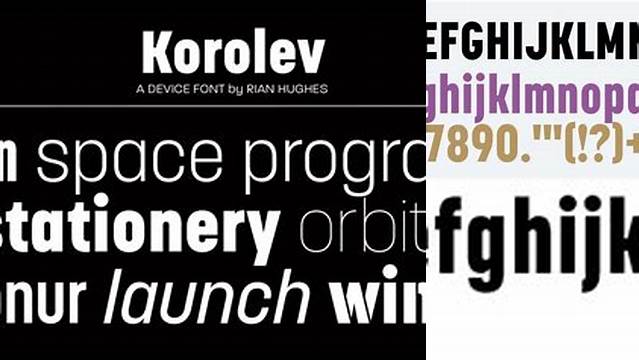
Hey guys, are you on the hunt for a bold, attention-grabbing font that's perfect for headlines, posters, and branding? Well, look no further because today we're diving deep into the Korolev Condensed Heavy font, including how to get a free download and how to use it effectively. This font is a real workhorse, offering a strong visual impact that can instantly elevate your design projects. So, let's get started and explore everything you need to know about this fantastic typeface!
What is Korolev Condensed Heavy? A Deep Dive
Firstly, what exactly is Korolev Condensed Heavy? It's a modern, sans-serif typeface known for its condensed nature and, as the name suggests, its heavy weight. This combination makes it ideal for making a statement. Think about it: the condensed style means it takes up less horizontal space than a regular font, allowing you to fit more text into a smaller area without sacrificing readability (as long as you use it in moderation, of course!). The heavy weight ensures that the text is bold and noticeable, instantly drawing the eye. The font's clean lines and strong presence make it a versatile choice for various design applications. From posters and websites to logos and social media graphics, Korolev Condensed Heavy can significantly enhance the visual appeal of your project. Its readability even at larger sizes makes it especially suitable for headlines, titles, and any other text that needs to grab attention.
The design of Korolev Condensed Heavy often features a geometric aesthetic, lending it a contemporary and slightly minimalist feel. This clean and simple design is one of the reasons why it is so effective. It avoids being overly ornate, ensuring that the message remains the primary focus. The font's structure typically offers a balance between formality and approachability, making it suitable for a wide variety of projects. Some designers often pair Korolev Condensed Heavy with lighter, more delicate fonts for body text to create visual contrast. This is a popular strategy to achieve balance and emphasize the important sections. This contrast can significantly boost the readability of your design while maintaining an appealing visual aesthetic. The overall effect is a well-structured design that is both impactful and user-friendly. Moreover, the font is generally well-spaced, providing a uniform and consistent appearance across different characters. This consistency is crucial for maintaining professional-looking designs. In today's design world, where visual communication is so important, choosing the right font is essential to conveying your message effectively. If you are looking to establish a modern and clean brand, or if you want to design a striking and memorable visual project, Korolev Condensed Heavy is worth serious consideration.